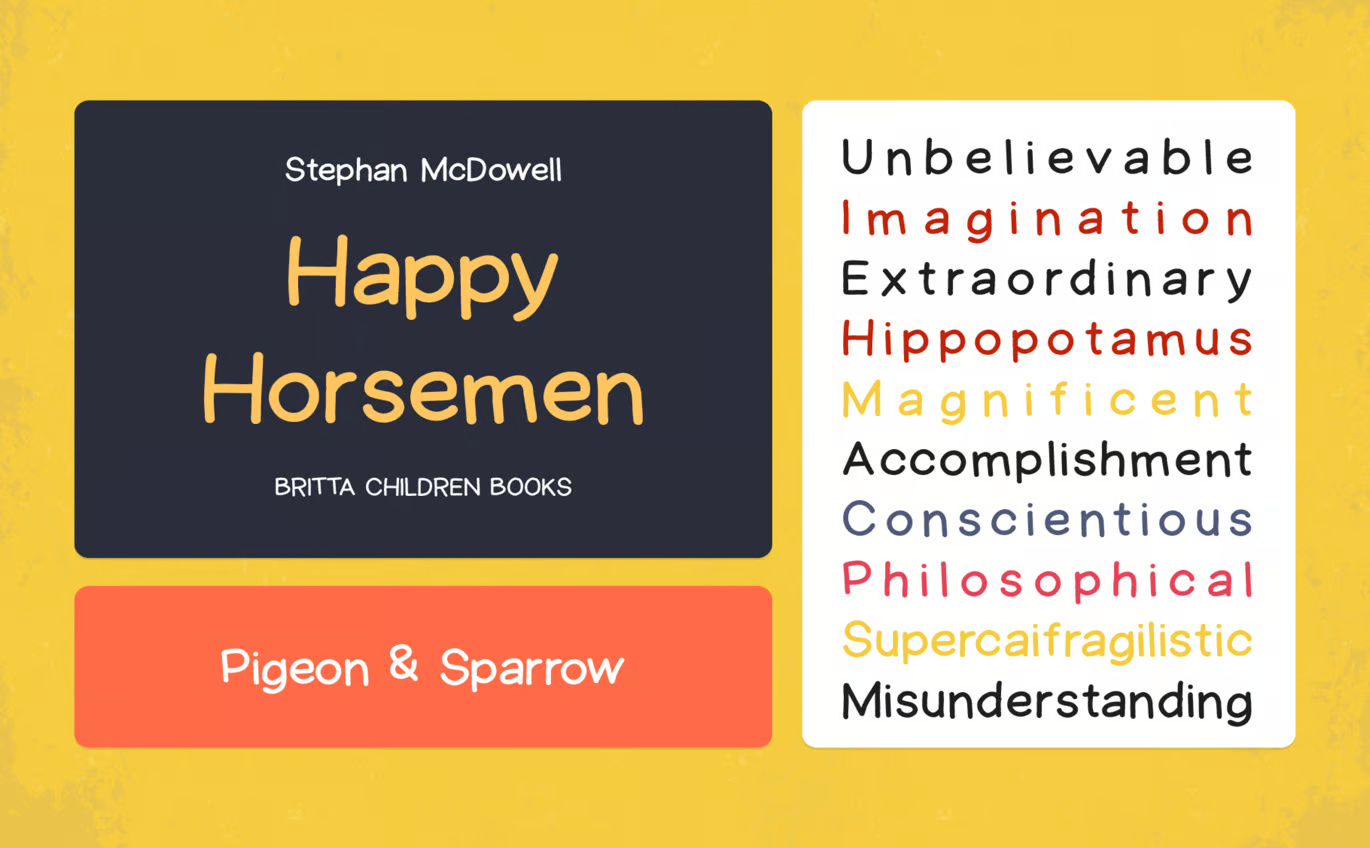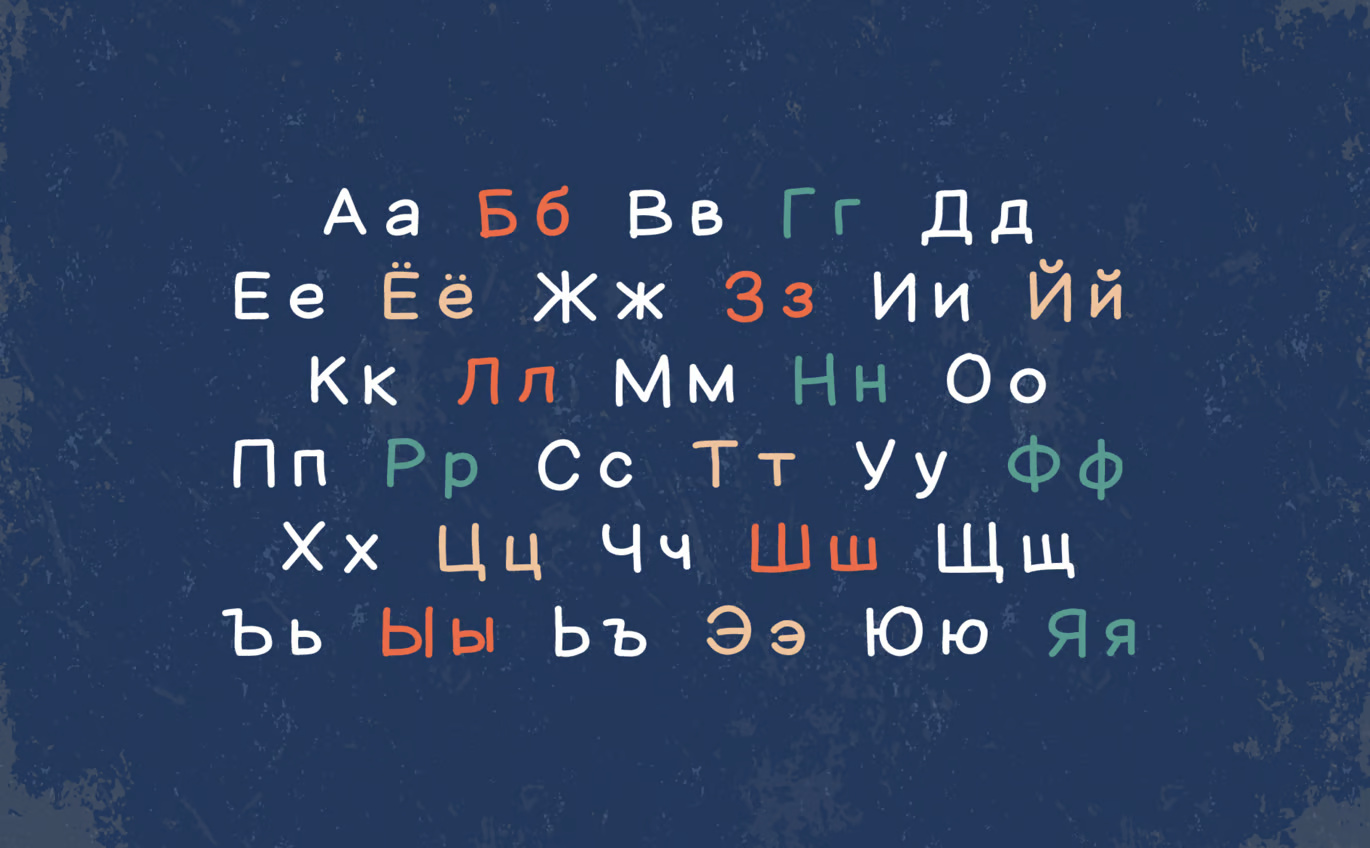
Halley Font Family 10 Fonts
Halley is a sweet, playful font with excellent kerning, making it ideal for both digital and print use. It features full support for the Cyrillic language, allowing for seamless multilingual communication. Halley’s unique design combines classic proportions with a contemporary feel, making it stand out from other fonts in the same category. Halley includes TTF, OTF, WOFF, and WOFF2 formats.